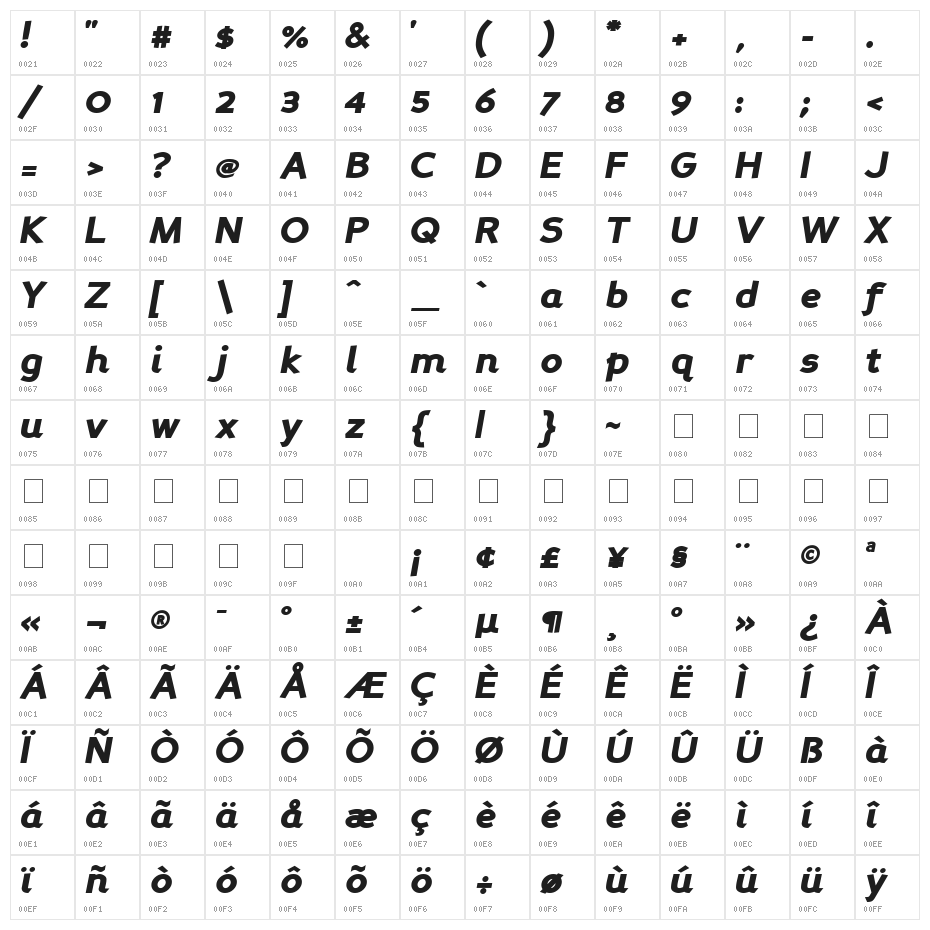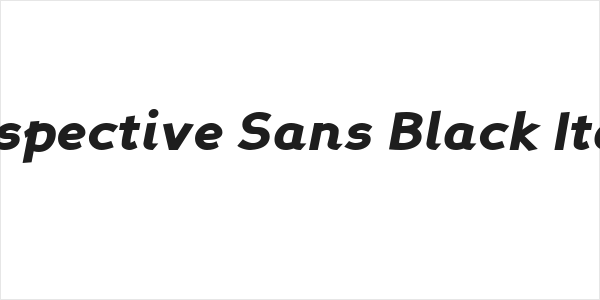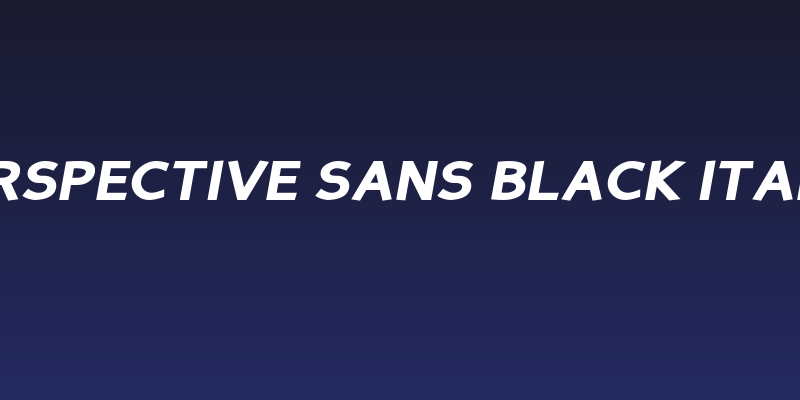
Perspective Sans Black Italic Font
Perspective Sans Black Italic Description
This font exhibits a bold and dynamic style, characterized by its strong, thick strokes and italicized slant. The sans-serif design provides a clean and modern appearance, making it highly legible and impactful. The uppercase and lowercase letters maintain a consistent weight, ensuring uniformity across text. The numerals and special characters are designed with the same boldness, enhancing the font's cohesive look. Its italic nature adds a sense of motion and emphasis, making it suitable for attention-grabbing headlines and titles.
| Proposed Projects | Ideal for branding, advertising, headlines, and any project requiring a strong visual impact. |